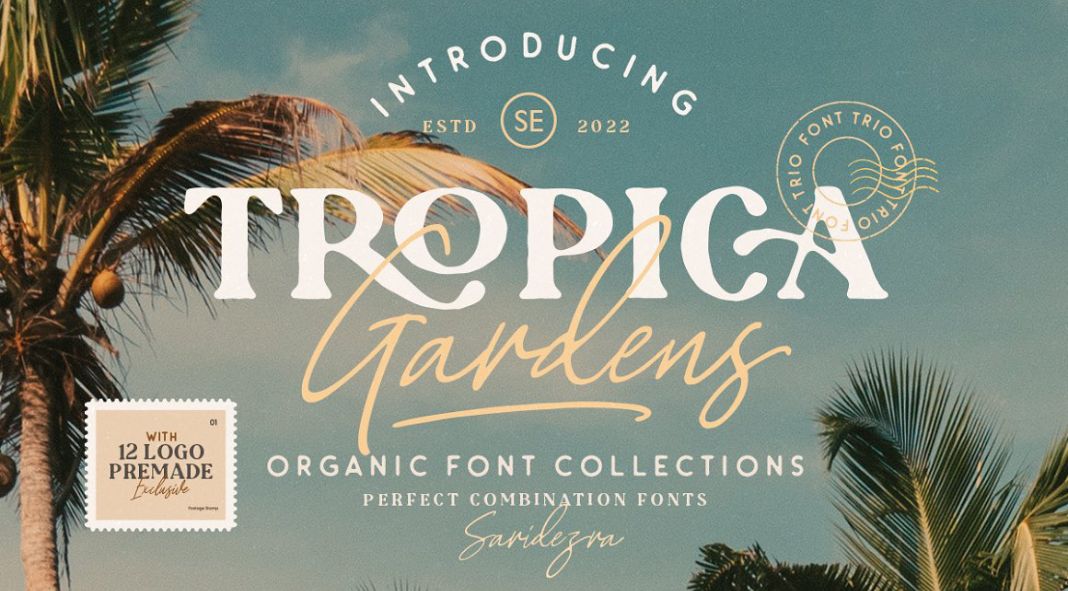
Introducing Tropica Gardens, a font trio made for creative designs.
Sarid Ezra has created Tropica Gardens, an exquisite font trio that is sure to captivate designers and elevate their work to new heights. With a bold serif, rounded sans, and authentic signature typeface, Tropica Gardens offers a versatile collection that is bound to leave a lasting impression.
First and foremost, let’s dive into the bold serif font of Tropica Gardens. This typeface exudes elegance and sophistication, making it ideal for headlines, titles, and other prominent design elements. The bold strokes and distinct serifs lend a timeless appeal to any project, whether it’s a wedding invitation, editorial layout, or branding material. The serif font’s versatility ensures that it can adapt seamlessly to various design styles, adding a touch of refinement to any composition.
Complementing the bold serif font is the rounded sans typeface in the Tropica Gardens trio. With its smooth curves and friendly appearance, this sans-serif font brings a sense of approachability and modernity to your designs. It works harmoniously alongside the bold serif, creating a balanced contrast that adds visual interest and helps guide the reader’s eye through the content. From body text to subheadings, the rounded sans typeface delivers legibility and a contemporary feel, making it a valuable asset in any designer’s toolkit.
However, what truly sets Tropica Gardens apart is its authentic signature typeface. This unique addition adds a personal touch to your projects, infusing them with a sense of authenticity and individuality. Whether used for logos, branding, or personal signatures, the signature typeface conveys a handwritten charm that creates a memorable impression. It adds a human element to digital designs, forging a connection between the creator and the audience.
In addition to the font trio, Tropica Gardens offers a selection of premade logos. These professionally designed logos serve as a starting point for your branding needs, saving you time and effort in the design process. Each logo has been meticulously crafted to reflect the versatility and character of the font trio, ensuring that your visual identity remains consistent and visually compelling across all platforms.
Tropica Gardens Fonts plus Logos by Sarid Ezra
To summarize, Tropica Gardens is a font trio that combines a bold serif, rounded sans, and authentic signature typeface. Designed by Sarid Ezra, these fonts work harmoniously together to bring a touch of vintage and personalization to your creative projects. With the addition of premade logos, this font trio offers a comprehensive package that caters to the needs of designers across various industries. Embrace the beauty and versatility of Tropica Gardens, and elevate your designs to new heights.